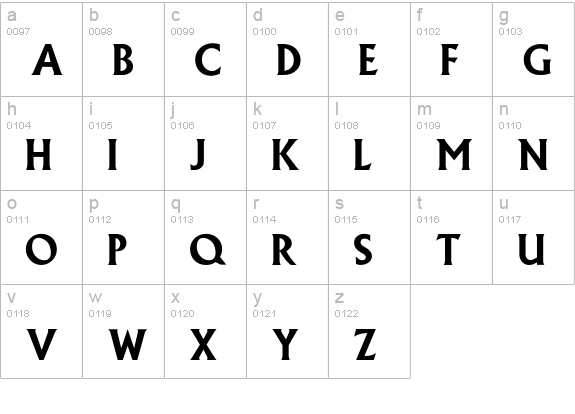
AlexanderBold Font Details
Introducing AlexanderBold font, a bold and modern typeface designed to make a statement. With its strong and distinctive characters, this font is perfect for headlines, posters, logos, and any design project that requires a touch of boldness. The AlexanderBold font is not only visually striking but also versatile, making it suitable for both digital and print media. Its clean lines and sharp edges give it a contemporary look that is sure to impress. Best of all, AlexanderBold font is available for free download at FontsMarket.com. So whether you're a professional designer looking to add a new font to your collection or a hobbyist seeking a fresh style for your projects, this font is a fantastic choice. Download it today and let your creativity soar with the bold and impactful AlexanderBold font.